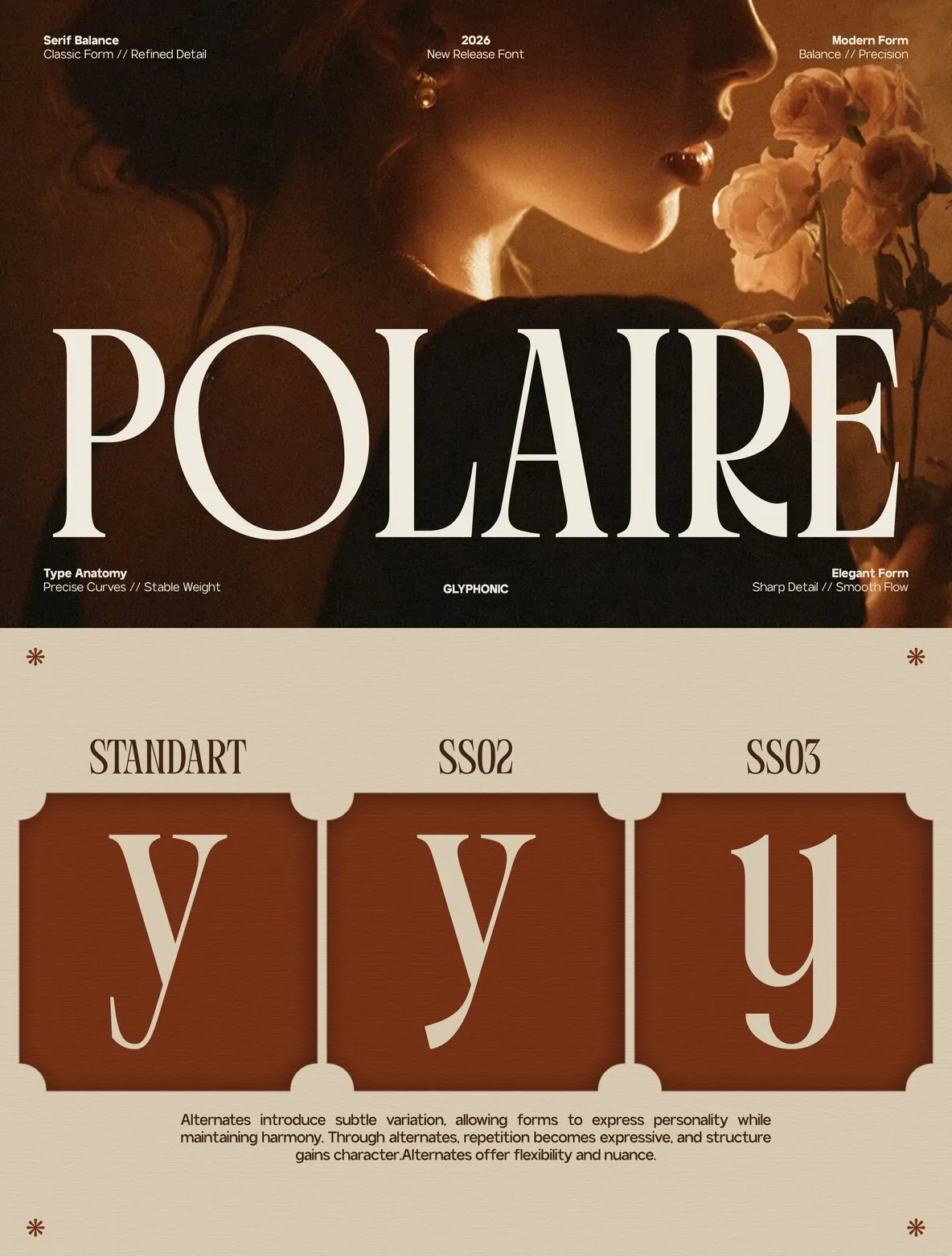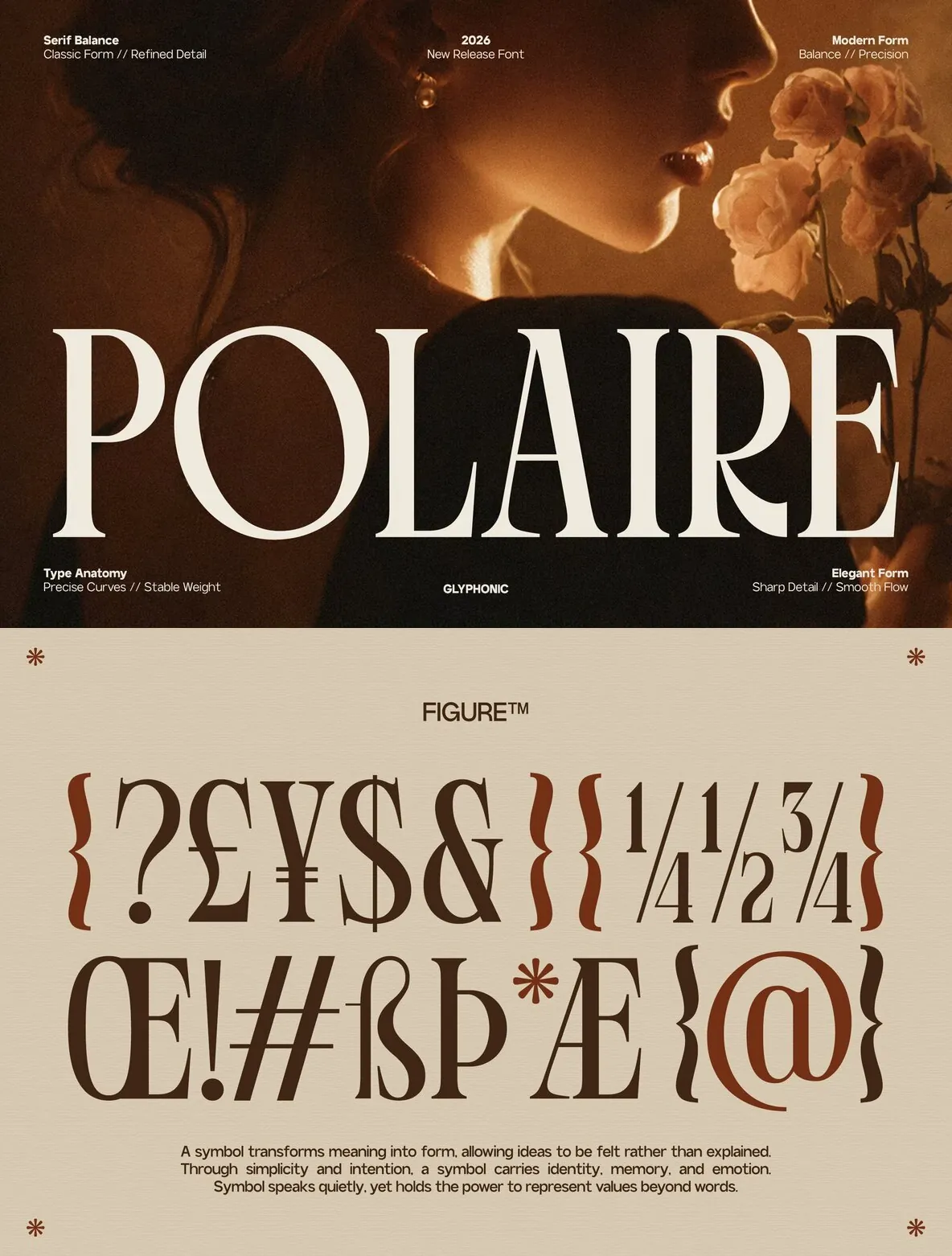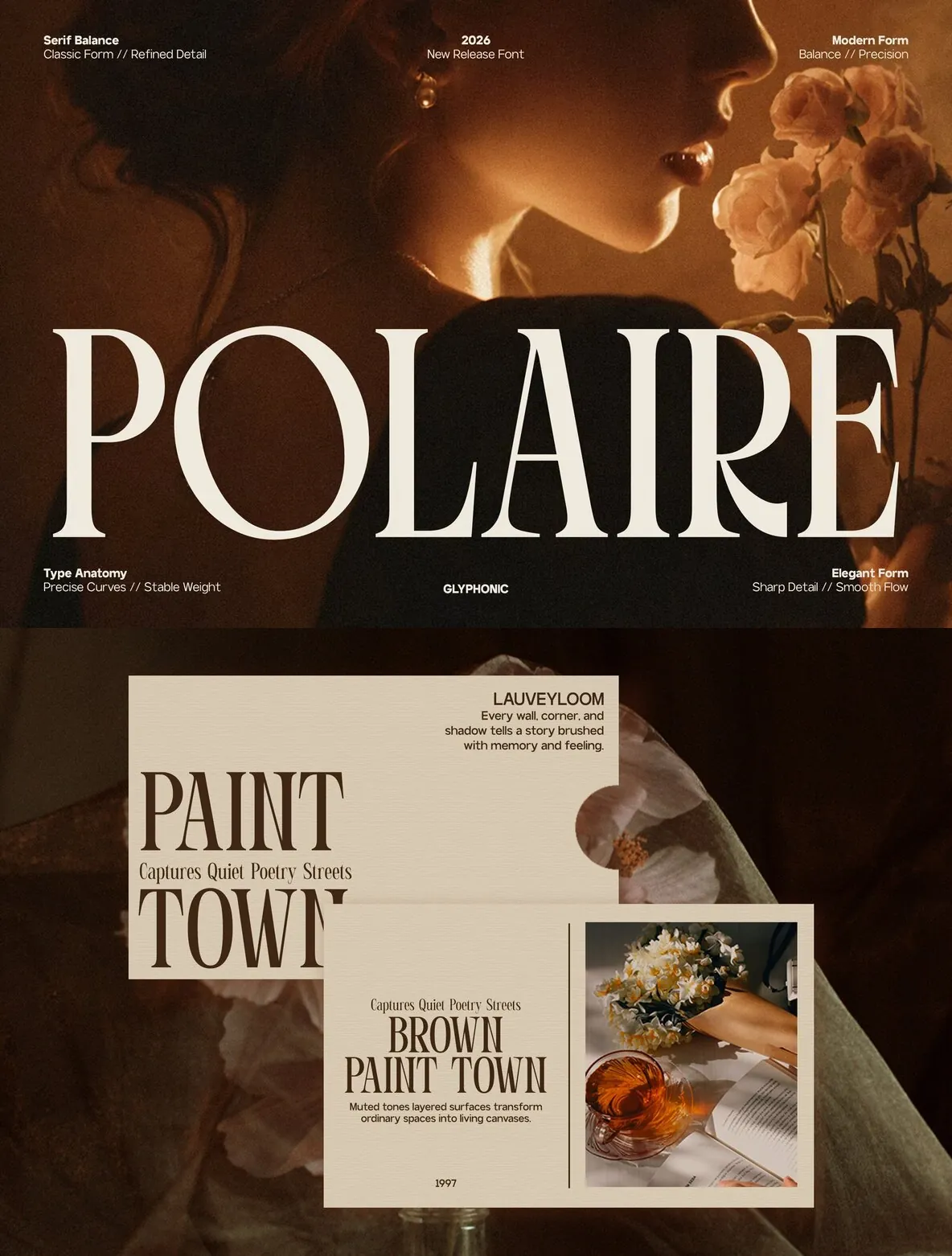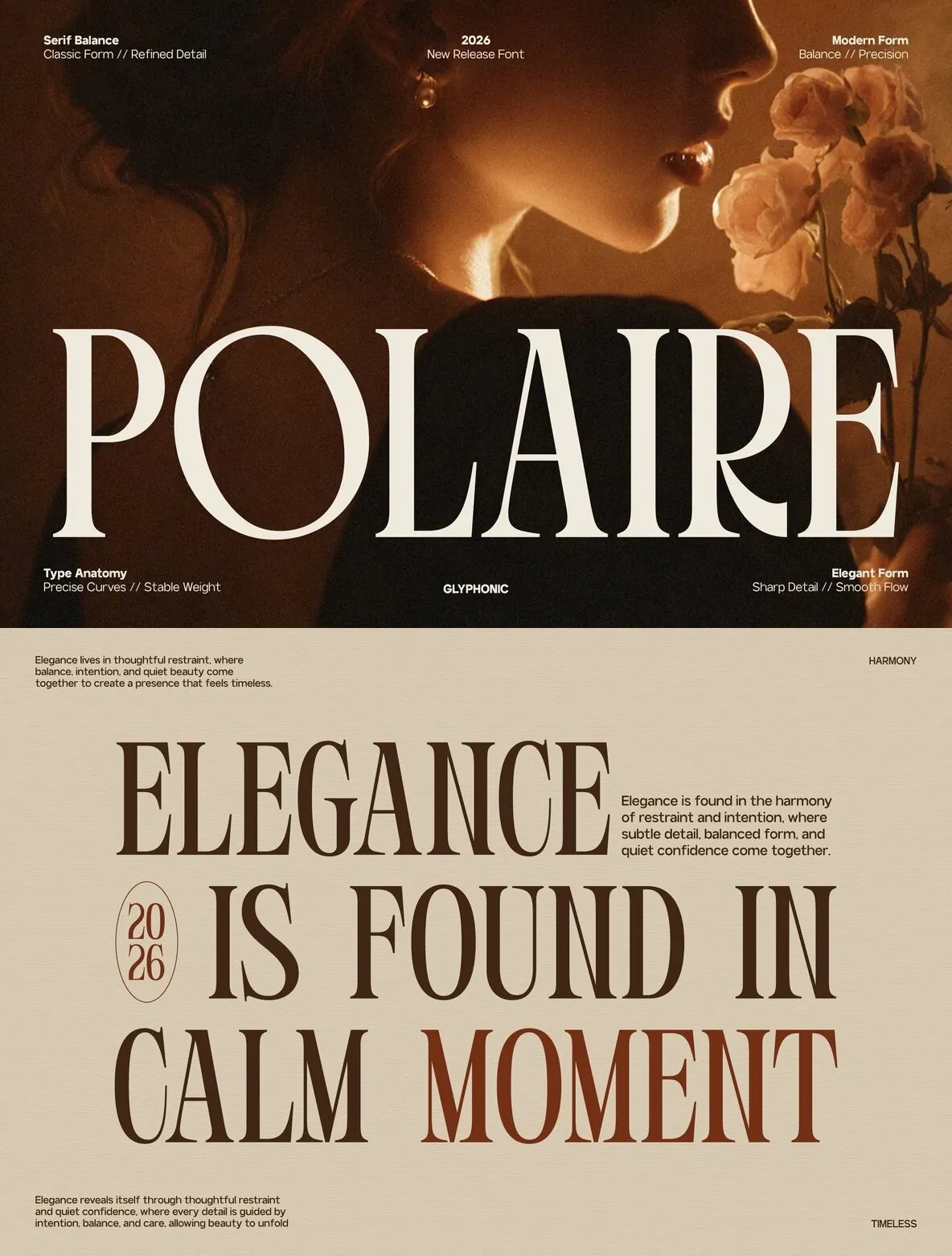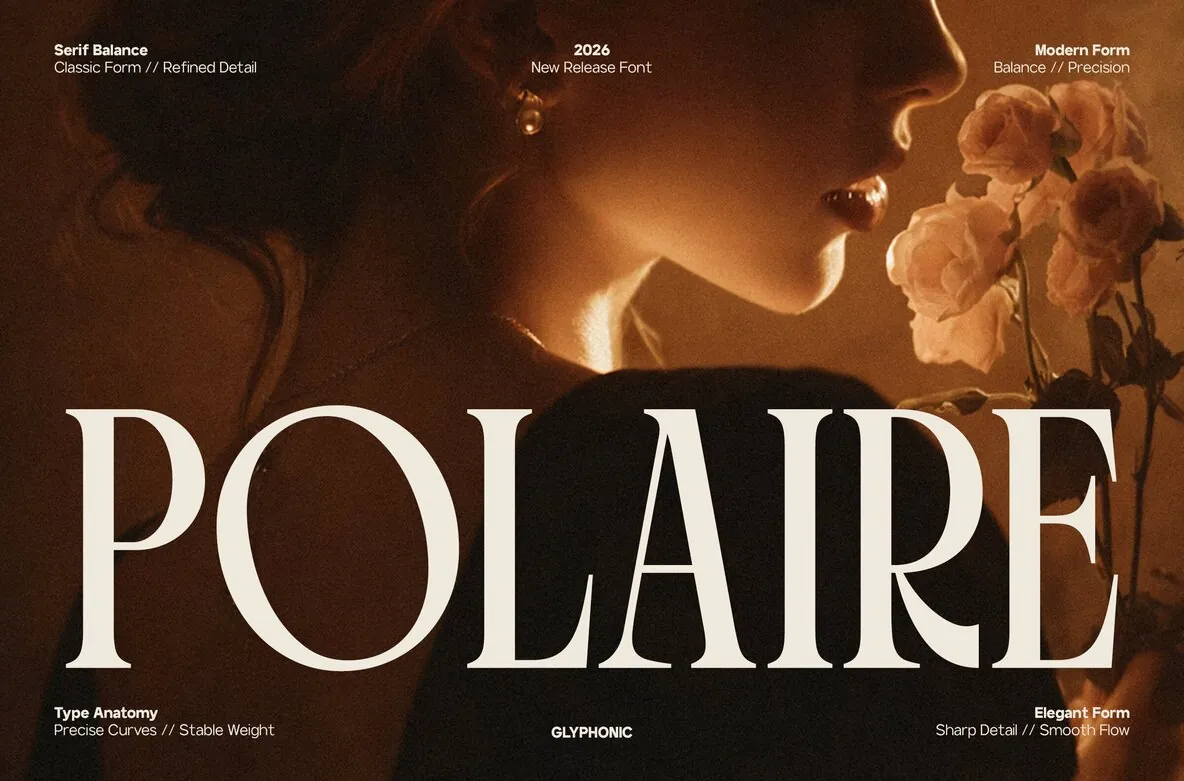
GC Polaire — Condensed Serif with Poise
GC Polaire – Serif Display Condensed
is a contemporary serif display typeface designed for elegance, presence, and refined intensity. Its condensed proportions and sharp serif details create a striking visual impact, while staying sophisticated and clear.
Built on a precise structure and a confident vertical rhythm, GC Polaire fits headlines, branding, and high-impact compositions. Its narrow stance supports strong typographic statements without taking over the layout. Use it for editorial titles, luxury packaging, fashion branding, posters, and modern visual identities where space is tight and character matters.
GC Polaire balances classic serif elegance with a bold display attitude. It reads as dramatic and authoritative, yet polished and controlled. Bring striking elegance, condensed power, and modern refinement into your design with
GC Polaire – Serif Display Condensed
Uppercase & Lowercase
Numbers & Punctuation
Condensed Display Proportions
Sharp & Refined Serif Construction